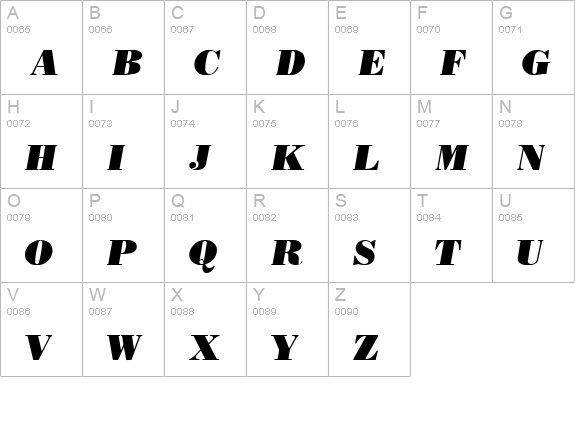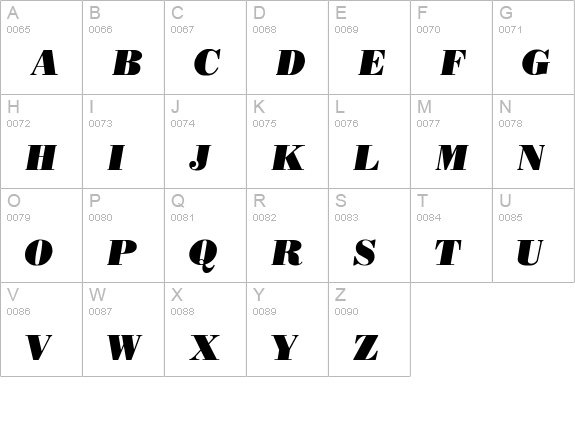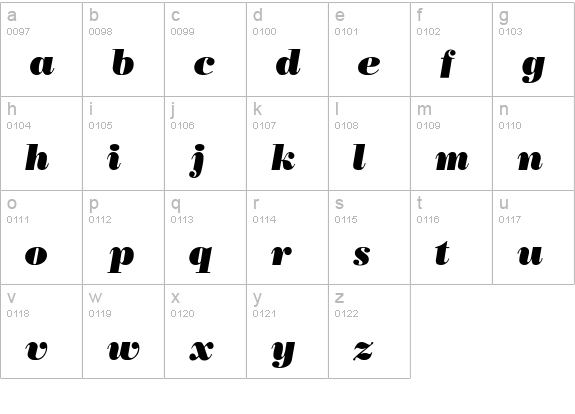
Boston Black Italic Font Details
Boston Black Italic is a maximum-weight, dramatic, italic variant in the Boston typeface family \xE2\x80\x94 well suited to maximum-impact headlines, posters, and packaging.
Boston Black Italic is a stunning display font that exudes elegance and sophistication. Its sleek and modern design makes it perfect for adding a touch of class to any project. The italicized characters give a sense of movement and style, making this font ideal for headlines, logos, and branding materials. What sets Boston Black Italic apart is that it is completely free to download at FontsMarket.com. This means that you can easily access this high-quality font and use it in your designs without any cost. Whether you're a designer looking to elevate your work or a business owner in need of a professional font, Boston Black Italic is the perfect choice. Download it today and experience the beauty and versatility of this exceptional font.